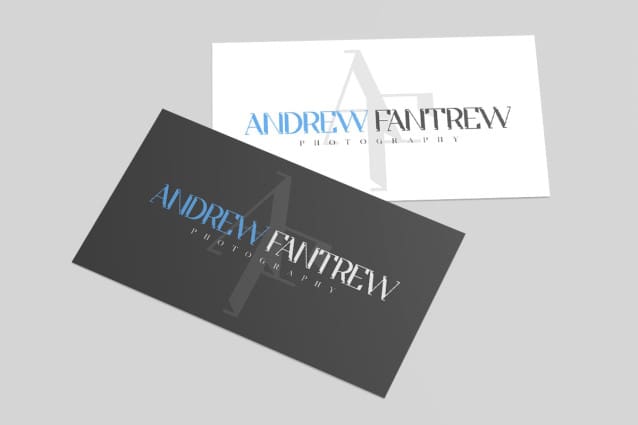
Flowzic Font
Flowzic Font – Modern Classy Unique Sans Serif Font is one of our collections of Sans Serif fonts. Although part of our modern language, Flowzic Font – Modern Classy Unique Sans Serif Font is versatile and can take center stage in layouts such as display fonts.
They are designed with a very modern, simple, and clean yet artistic feel to decorative typography. This font tries to liven things up in its way. Flowzic Font – Modern Classy Unique Sans Serif Font has nearly the same line width throughout. Flowzic Font – Modern Classy Unique Sans Serif Font is one of many sans-serif fonts that can be used for newspaper headlines, magazine covers, posters, and banners. This font can be used for branding a product. It can be used as an advertising font and on the packaging.
The simple but elegant impression attached to this font can make your product look very classy. Flowzic Font – Modern Classy Unique Sans Serif Font is one of the considerations that you can use in choosing a font to accompany the product you are going to sell because branding a product is important.